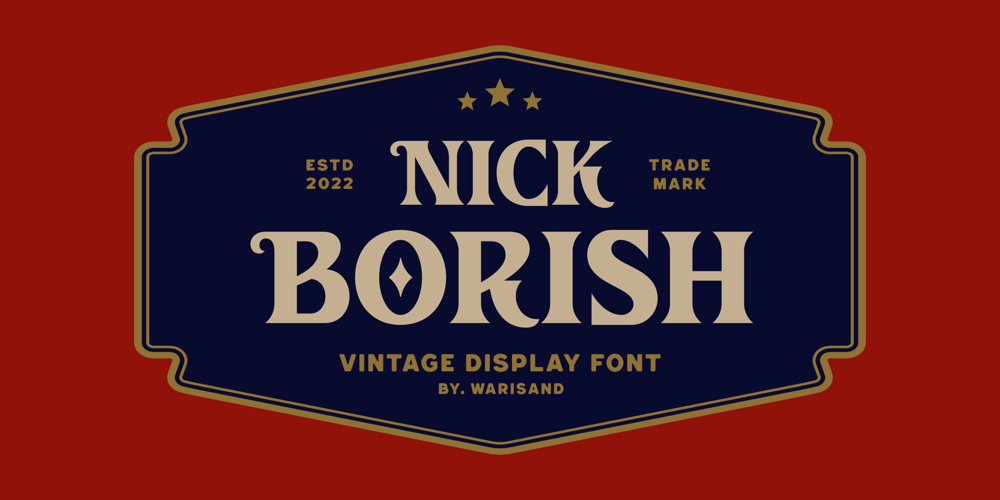
Nick Borish
Nick Borish font
Nick Borish Font Family was designed by Widarti Sri Wahyuni and published by Warisand. Nick Borish contains 1 styles and family package options. Nick Borish is a Vintage Font inspired by beautiful vintage sign art and lettering. The font comes with unique design characters to give your designs an elegant and artistic look. It is perfect for logo and packaging design, short phrases or headlines.